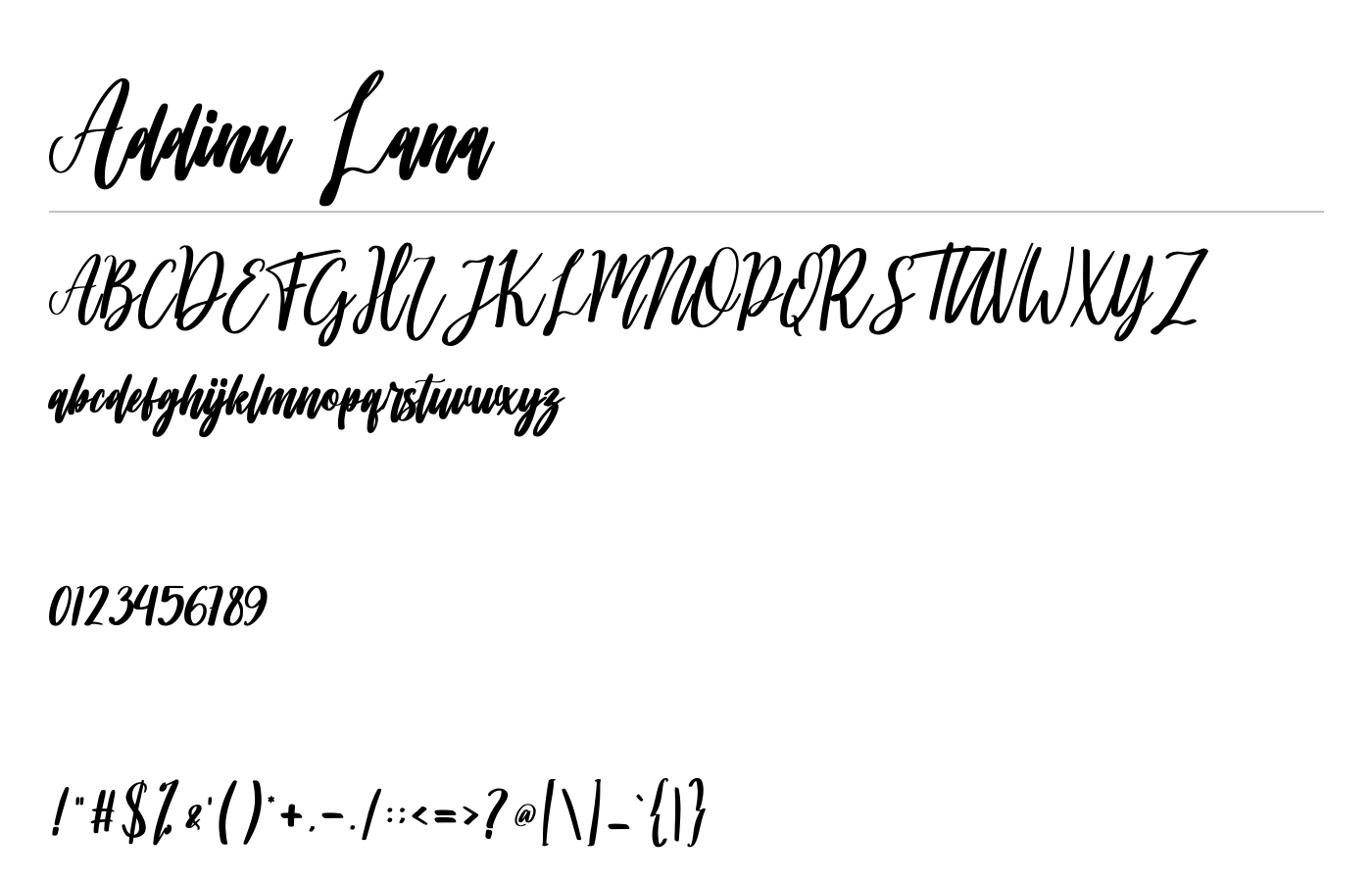
Addinu Lana is a stylish script font that blends elegant, flowing uppercase letters with bold, brushstroke lowercase characters, creating a dynamic and modern handwritten feel. Its moderate contrast and slightly condensed letterforms make it perfect for eye-catching logos, invitations, and branding that seek a lively yet sophisticated personality. This font works especially well where a personal, artistic touch is desired, bringing both charm and readability to creative designs.
Addinu Lana Font
About Addinu Lana Font